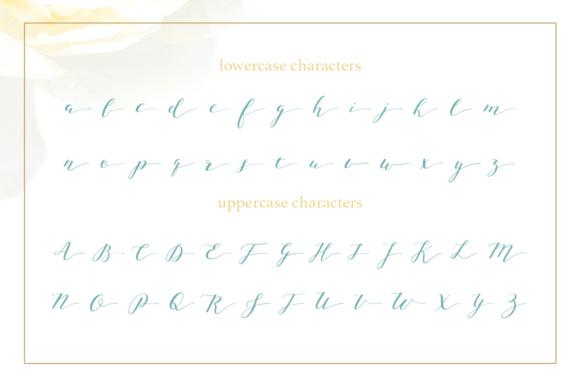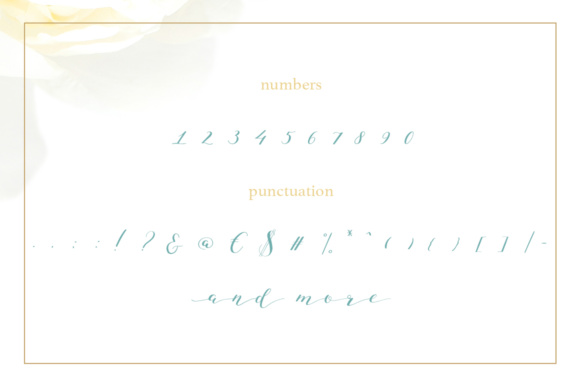
Joleni Font
db-ku.com - Script & Handwritten -- Joleni is a carefully handmade font. It is soft and elegant and is smoothly blending in with a classic wedding stationery collection, floral wall art or feminine business logos.